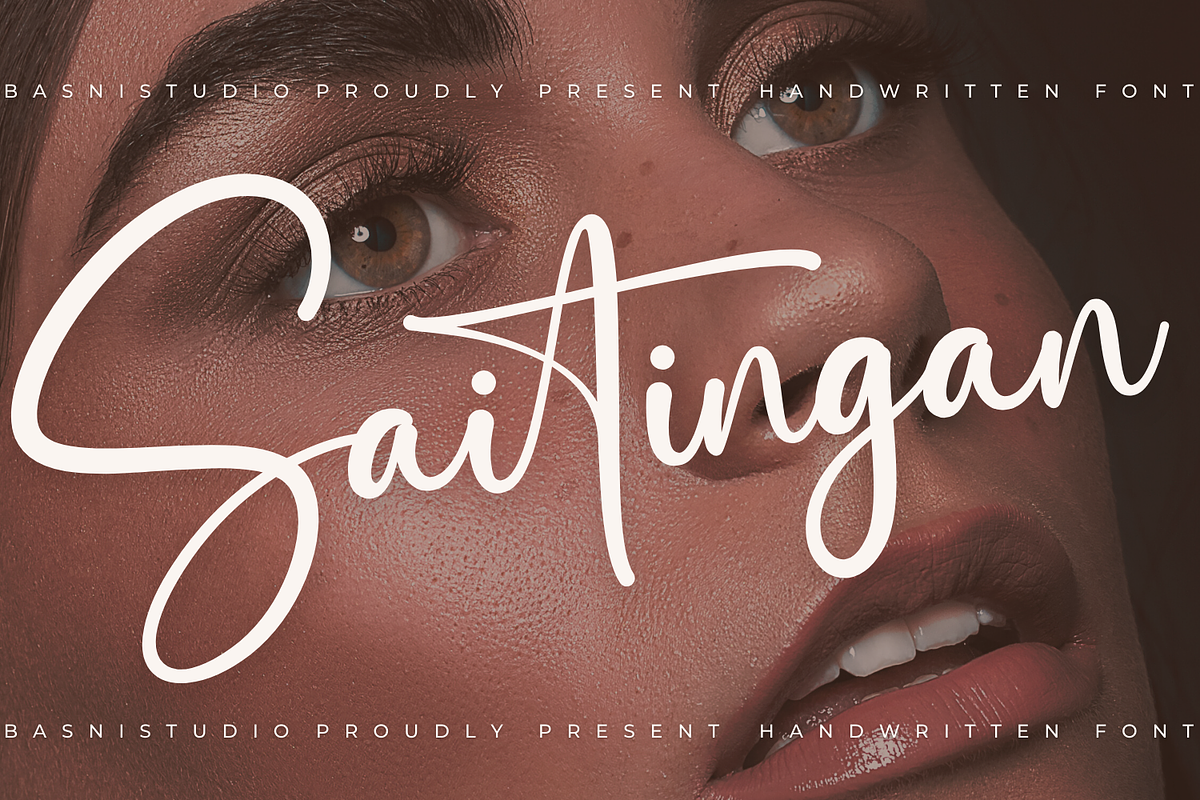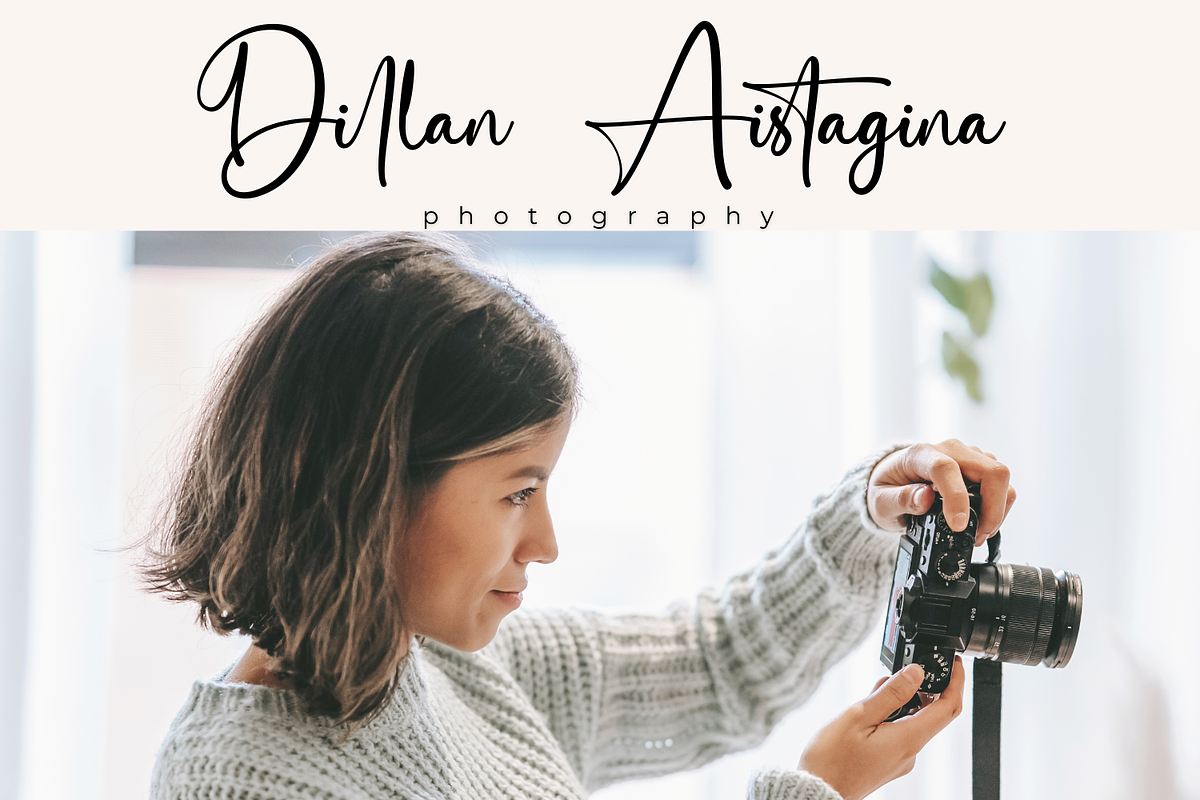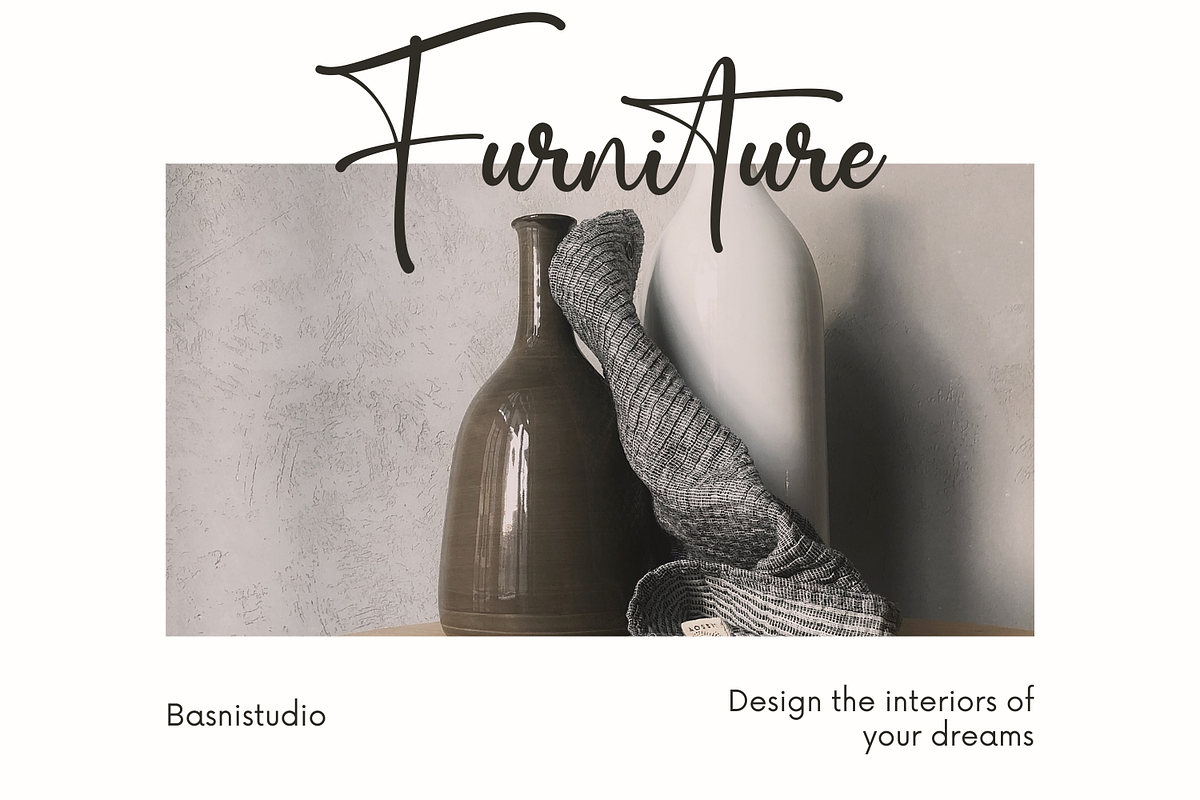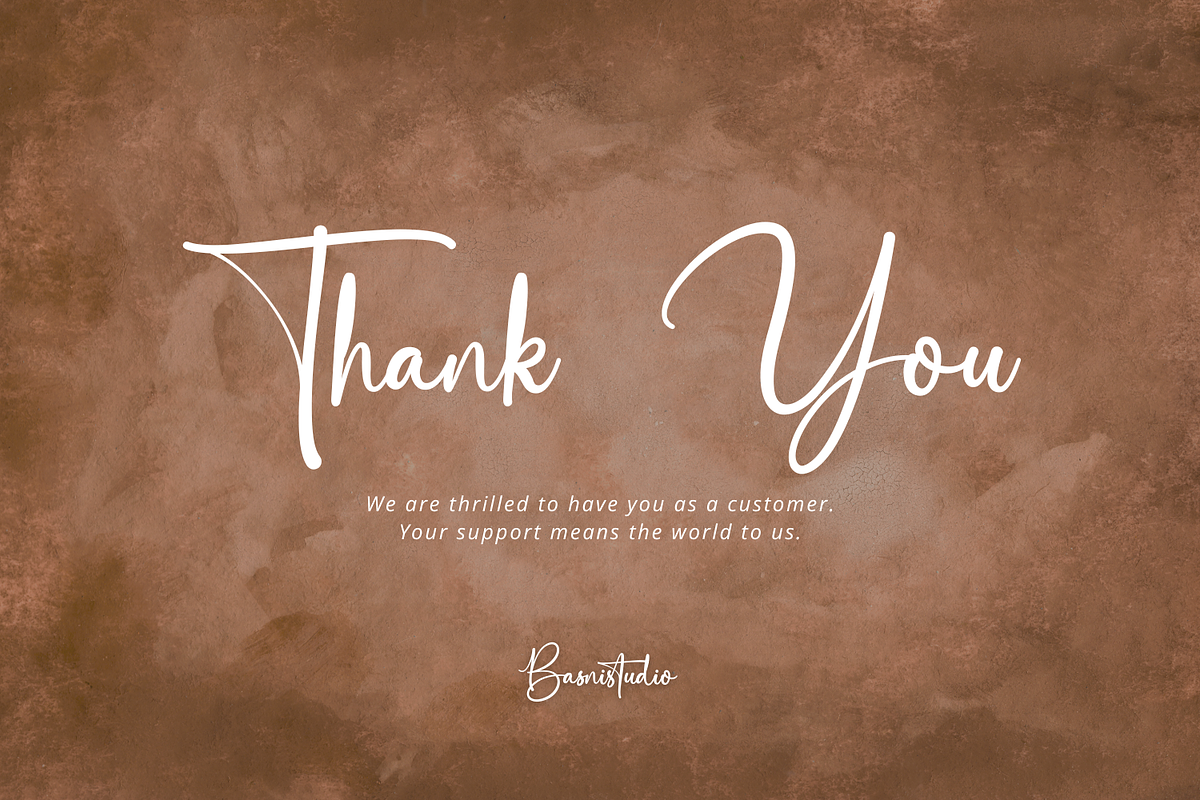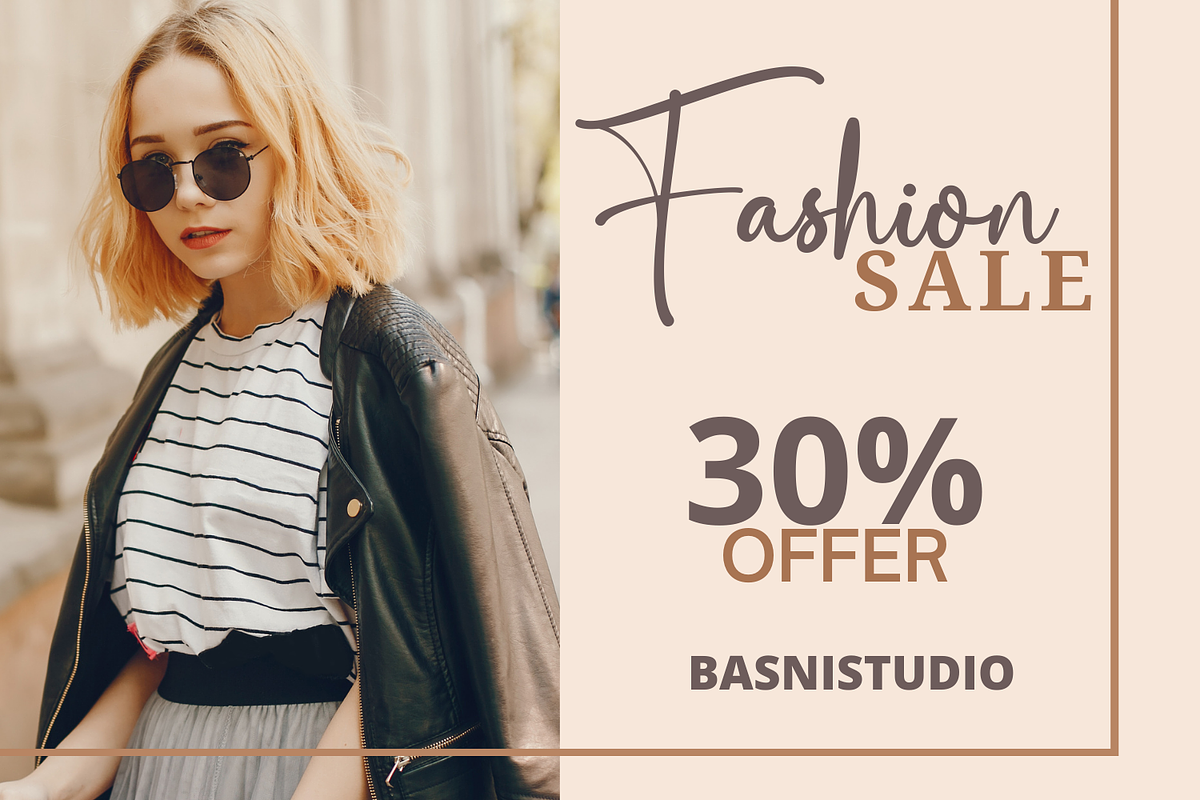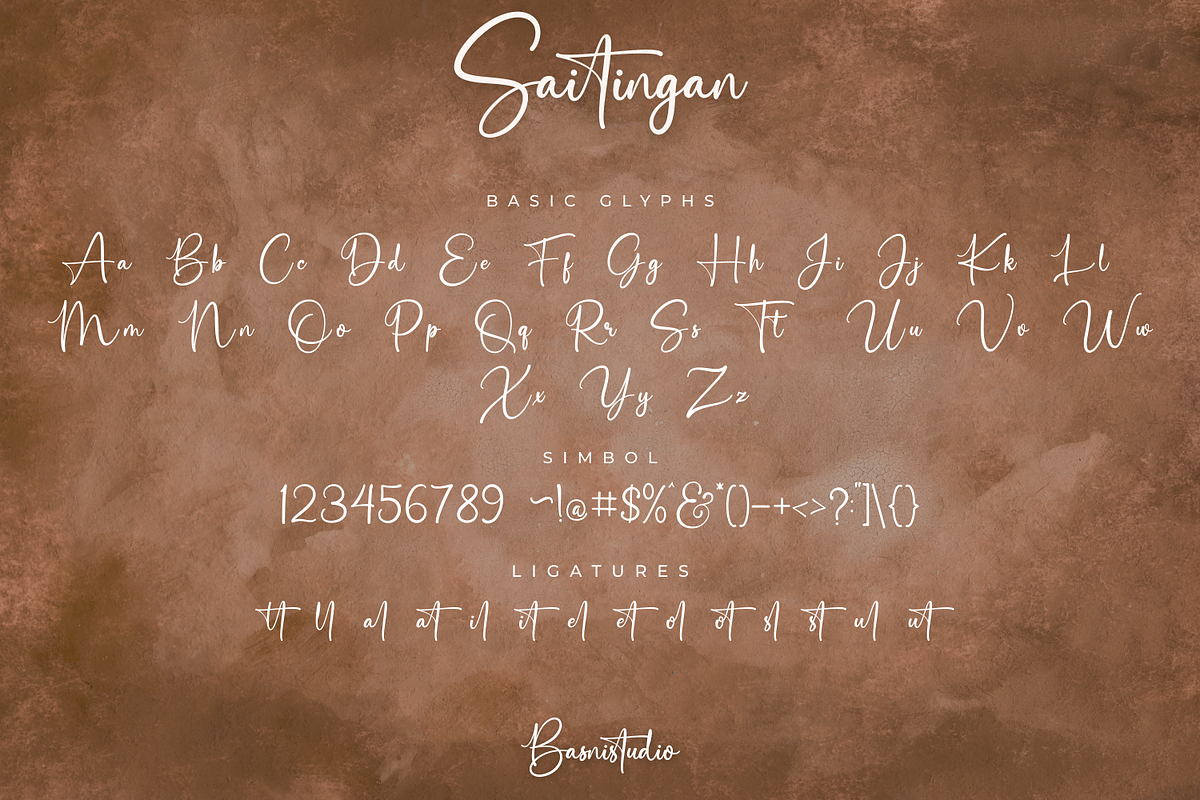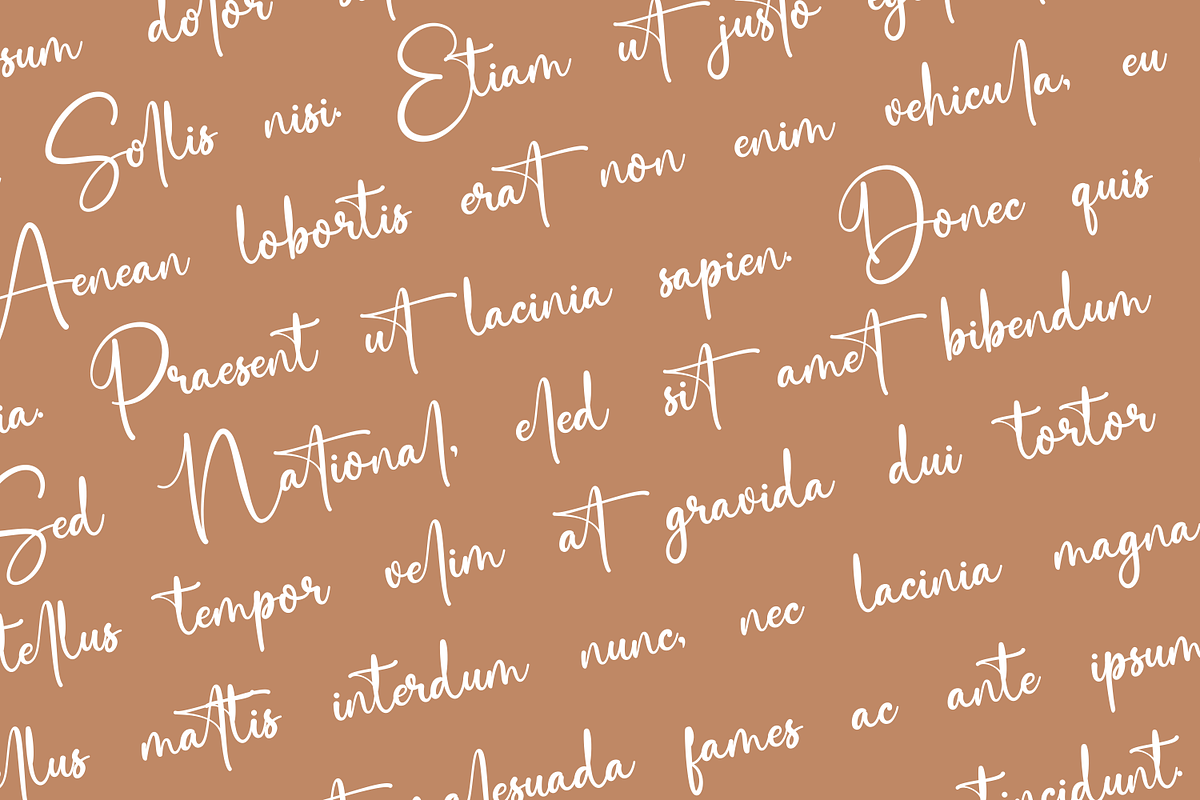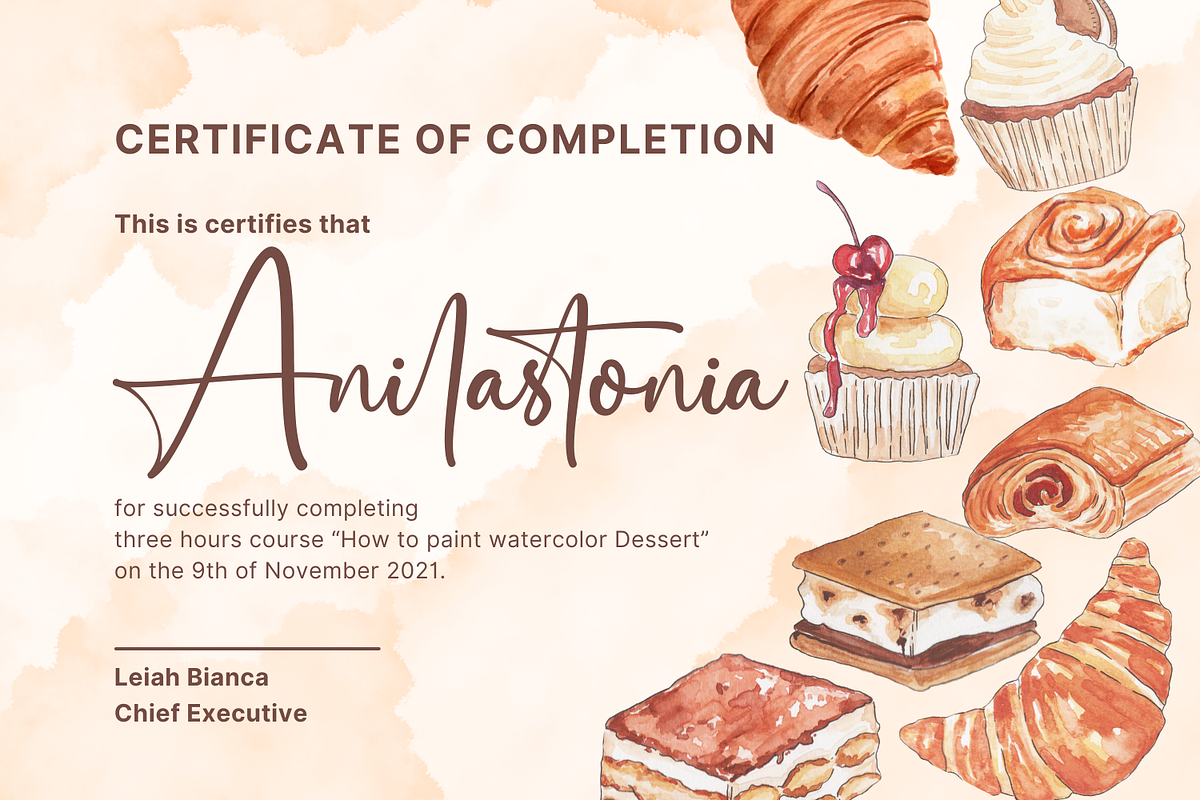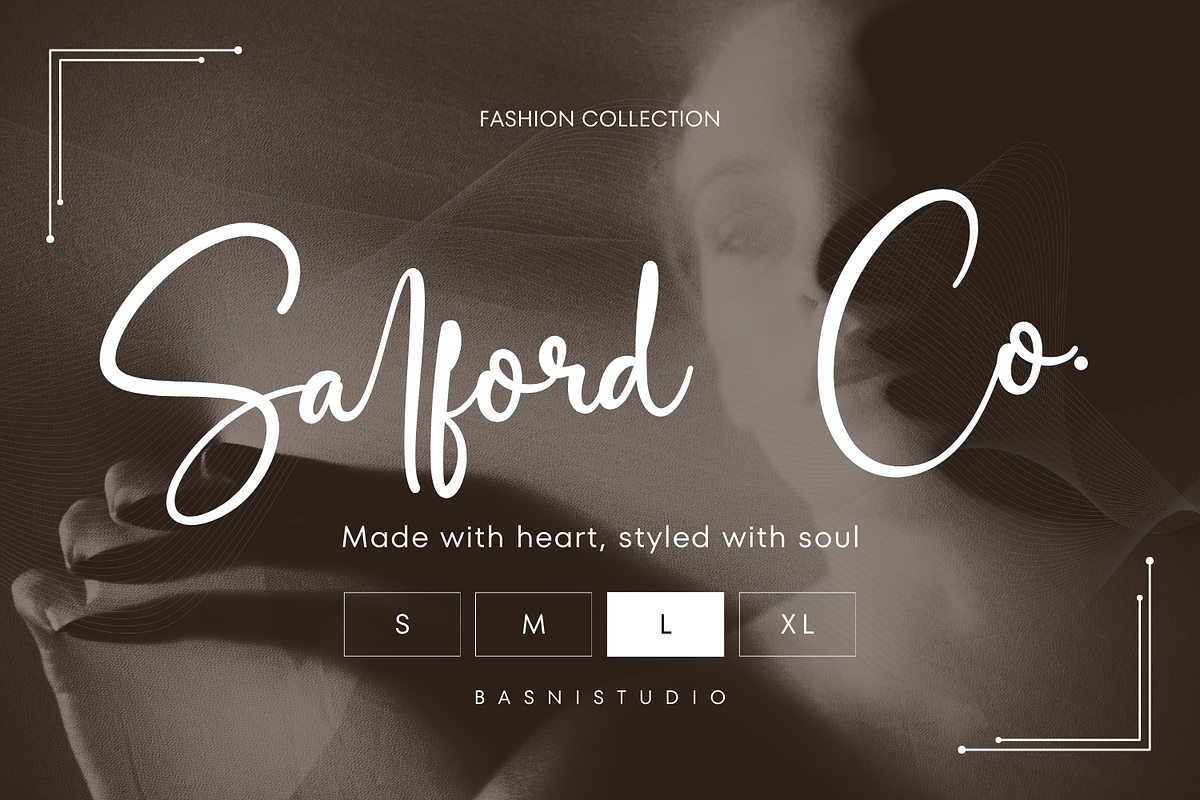
Saitingan a Handwritten Font
The Perfect Handwritten Touch for Your Designs Introducing Saitingan a Handwritten Font that adds a elegant, versatile touch to everything from branding and social media to invitations and packaging. ✔ Elegant & Versatile – Perfect for logos, quotes, greeting cards, and more ✔ Authentic Handwritten Feel – Created with real pen strokes for a natural look ✔ Easy to Use – Works seamlessly with all major design programs Whether you're building a powerful brand identity or crafting a standout logo, Saitingan gives you the creative edge you need. What’s Included: Uppercase & lowercase letters Ligature Numbers & punctuation Multilingual Support ( Support for 90 languages ) 📥 Instant Download – Start playing with your new favorite font today! 👉 Grab It Now! 🖌️ If you have any questions please don’t hesitate to contact me. follow my Instagram: @basni.std And check our Site www.Basnistudio.com Thank You Very Much